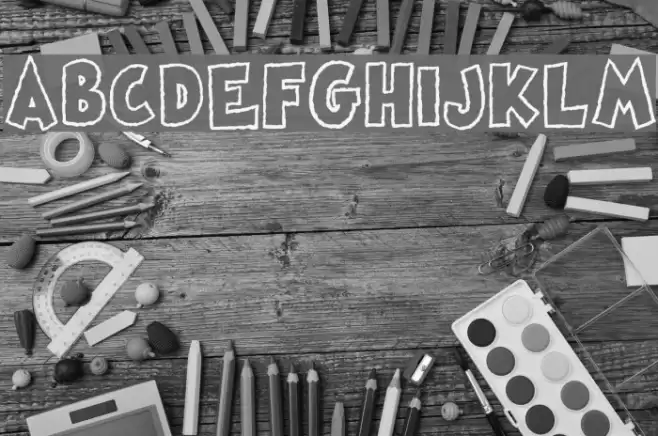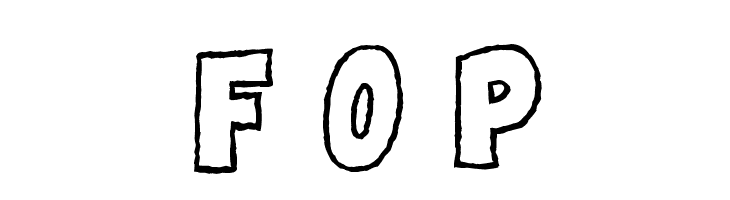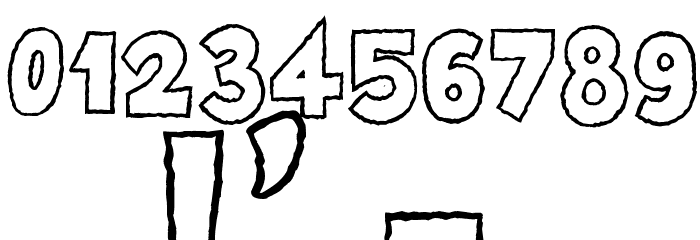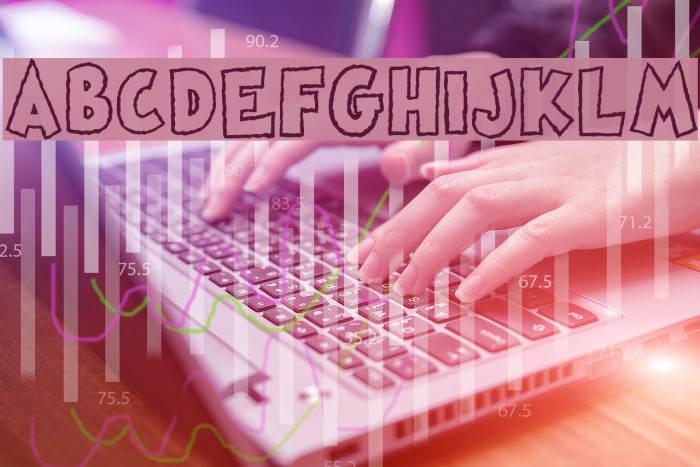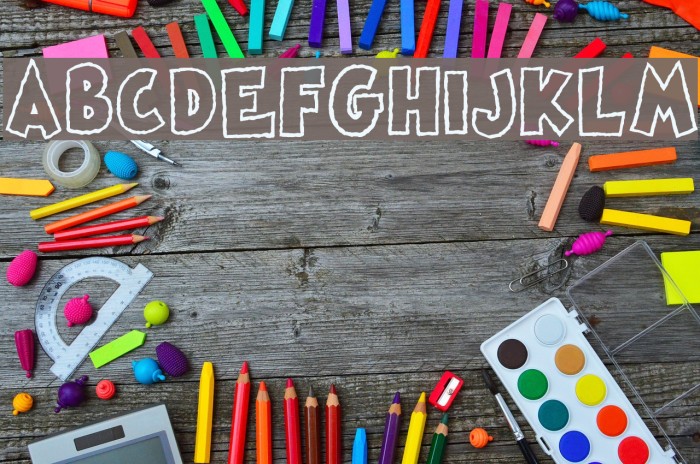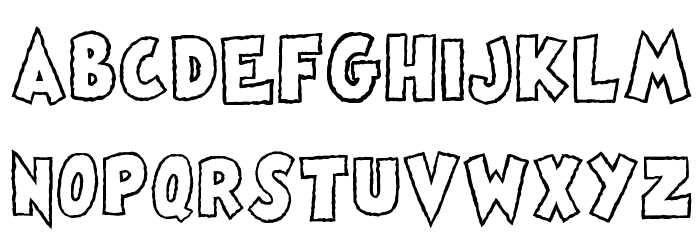
Famous Oldies Plain Font
Famous Oldies Plain Description
This font features a playful and bold hand-drawn style, characterized by its uneven and slightly wavy lines that give it a whimsical and informal appearance. The letters are uppercase, with a consistent height and width, but each character has a unique, slightly irregular shape that adds to its charm. The numbers and special characters follow the same playful design, making the font suitable for creative and fun projects. The overall look is reminiscent of vintage comic book lettering, with a touch of nostalgia and personality.
A playful, hand-drawn font with a bold, whimsical style from Uncategorized fonts.
- Proposed Projects: Ideal for children's books, comic strips, playful branding, and retro-themed designs.
- Overall Style: Vintage